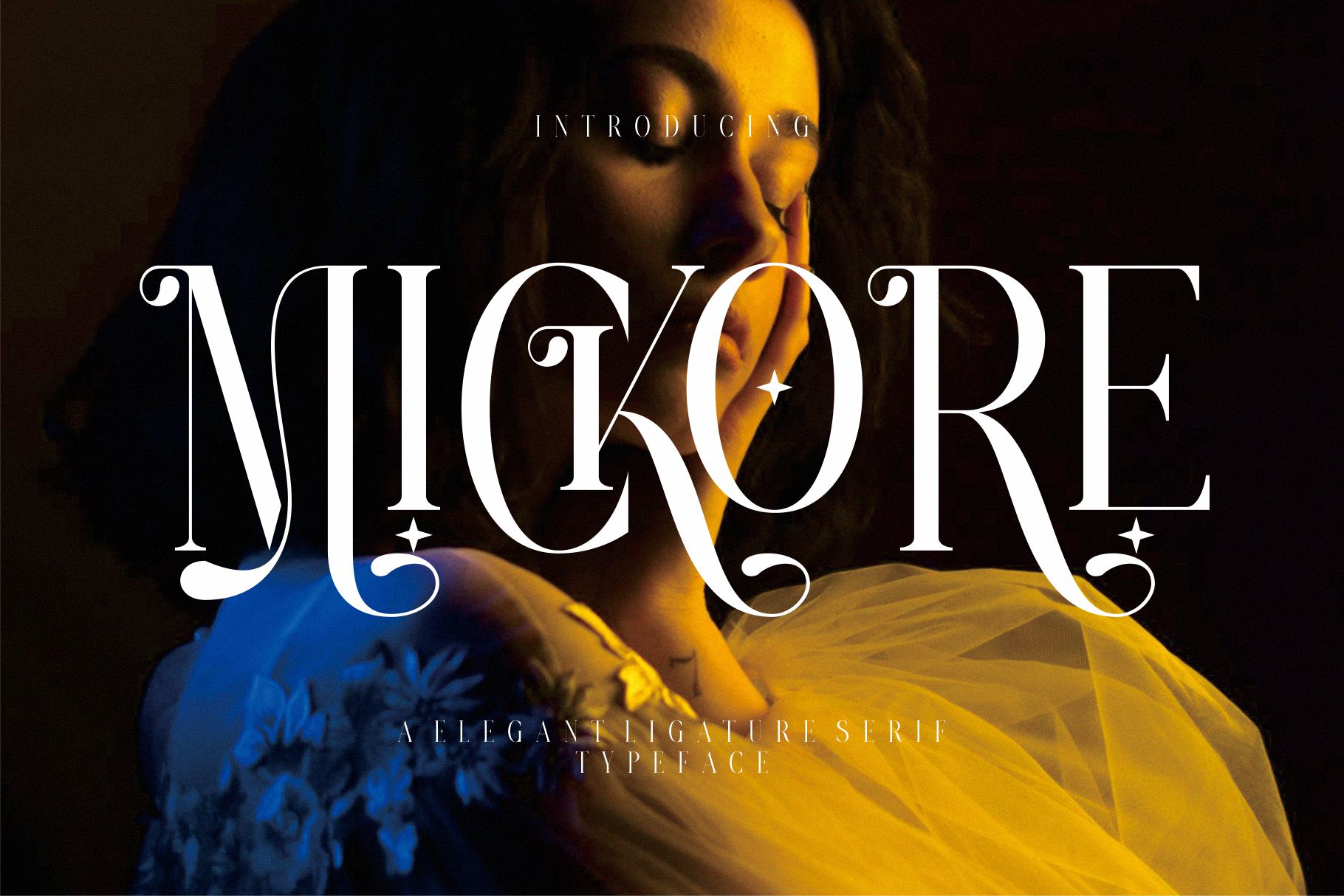
Mickore Ligature Serif Font
Designed by Alfinart
About Mickore Ligature Serif
**MANERA** Modern Sans Serif Typeface inspired by the famous minimalist logo perfect for the purposes of designing templates, brochures, videos, advertising branding, logos, invitation, layout design, elegant crafting, beauty design and other